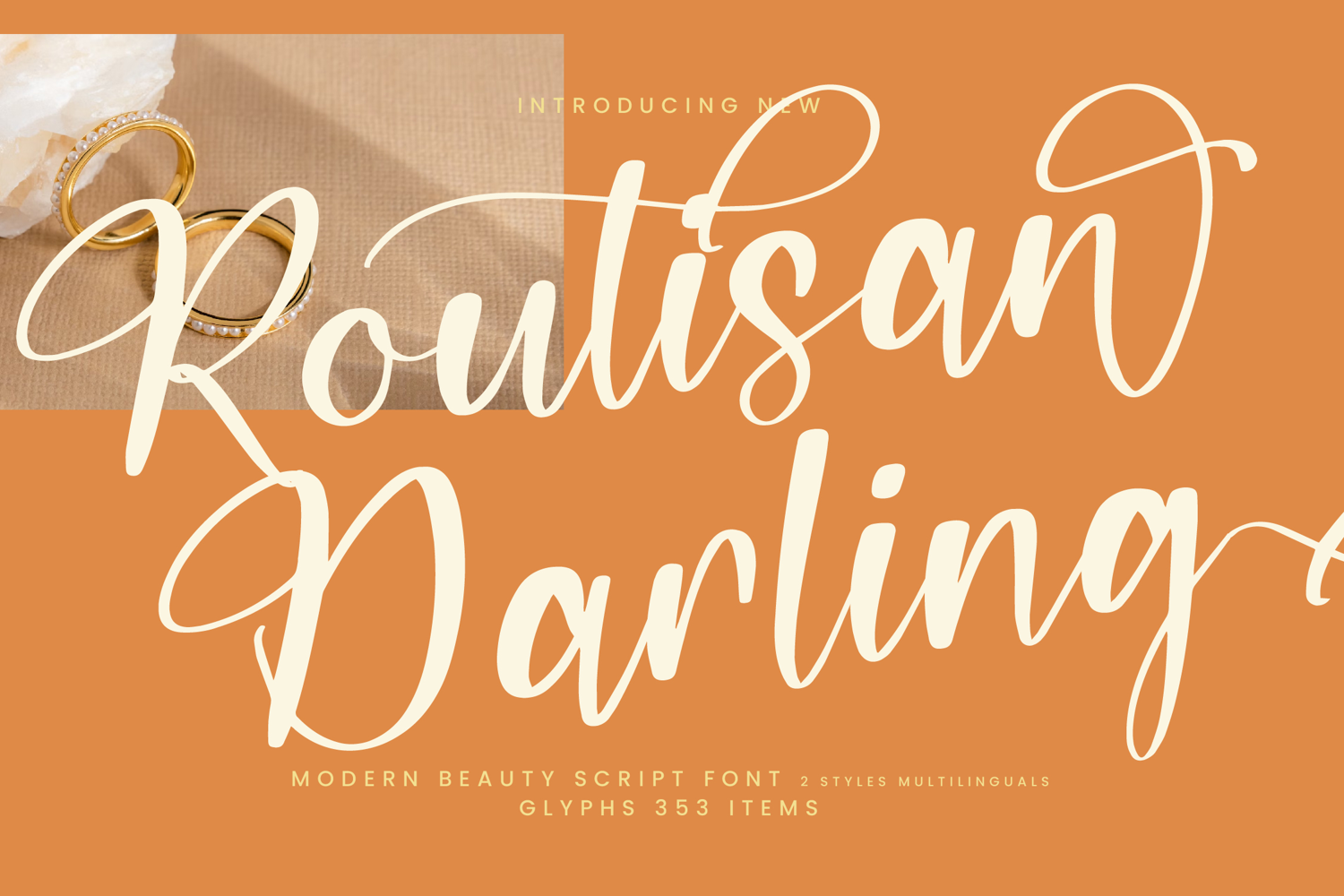
Routisan Darling
Routisan Darling - Modern Beauty Script Font, from Integritype Studio, perfect for any project like: logos, branding projects, homewares designs, product packaging, mugs, quotes, posters, shopping bags, t-shirts, covers books, business cards, invitation cards, greeting cards, labels, photography, watermarks, special events and all your other luxury projects that require a premium taste.
Ligatures, Alternate & Swashes